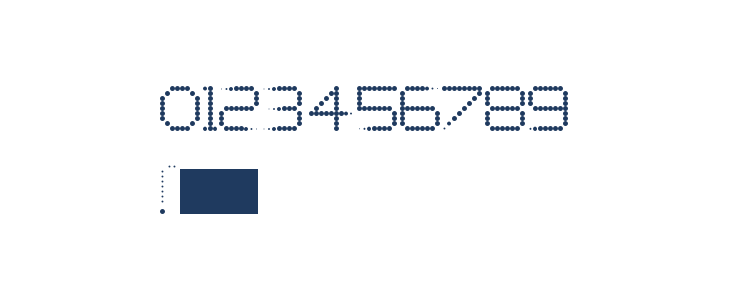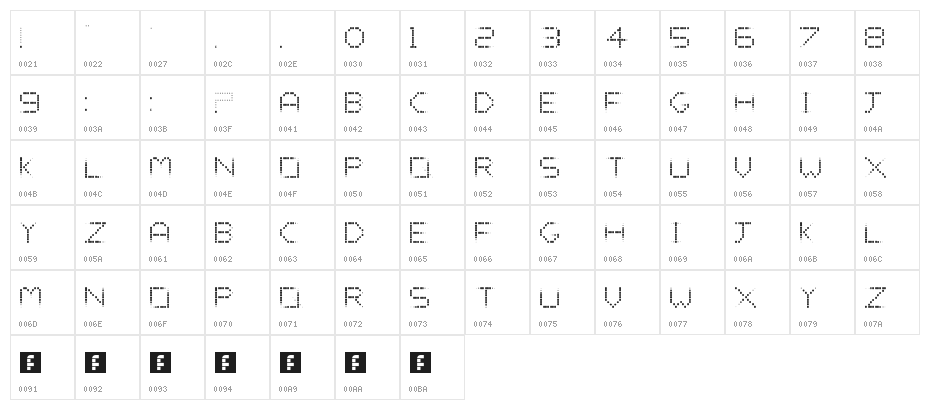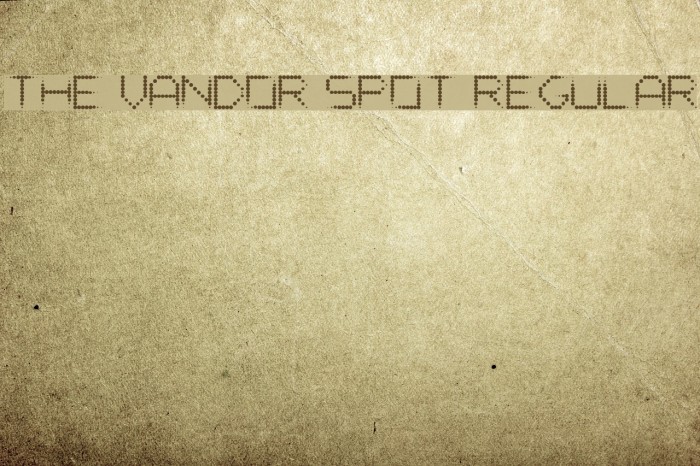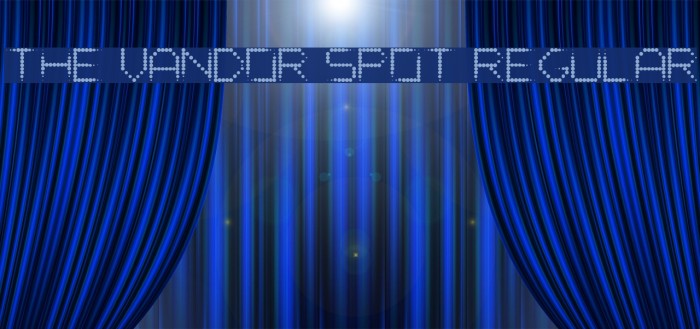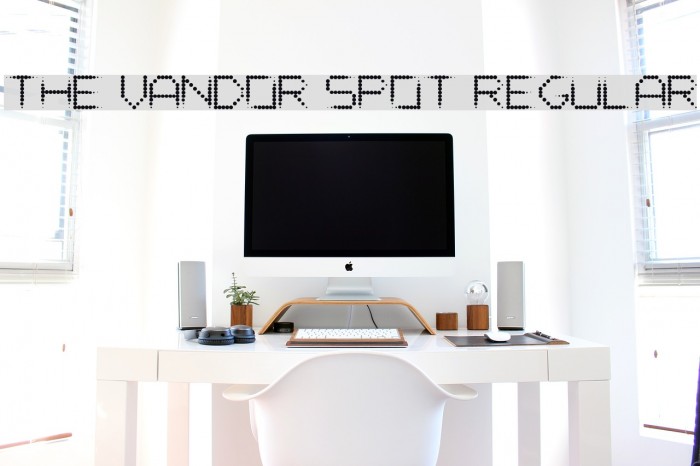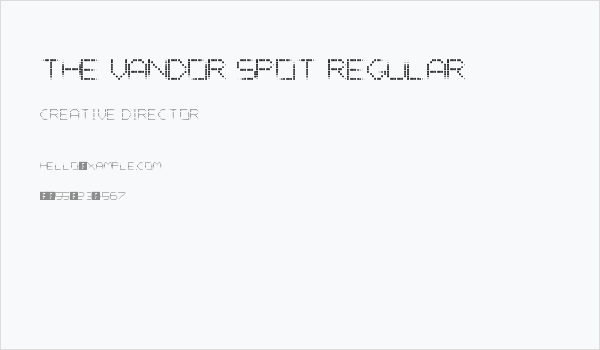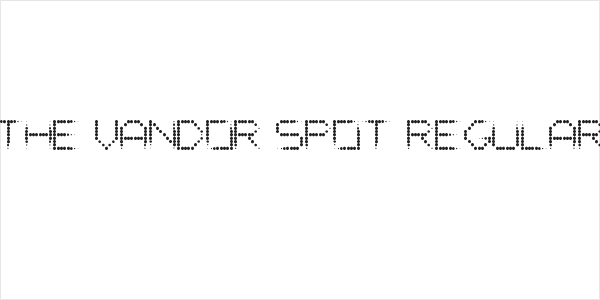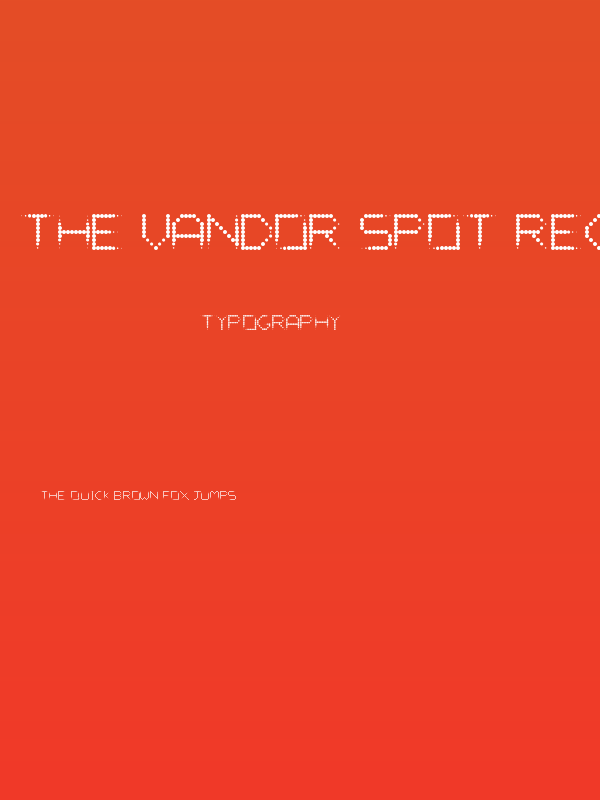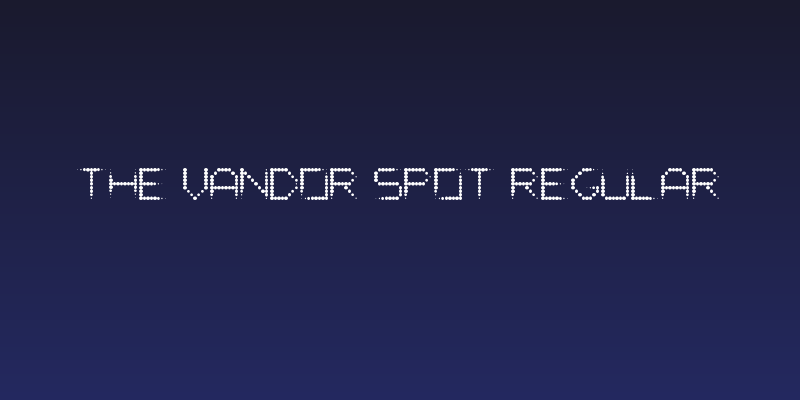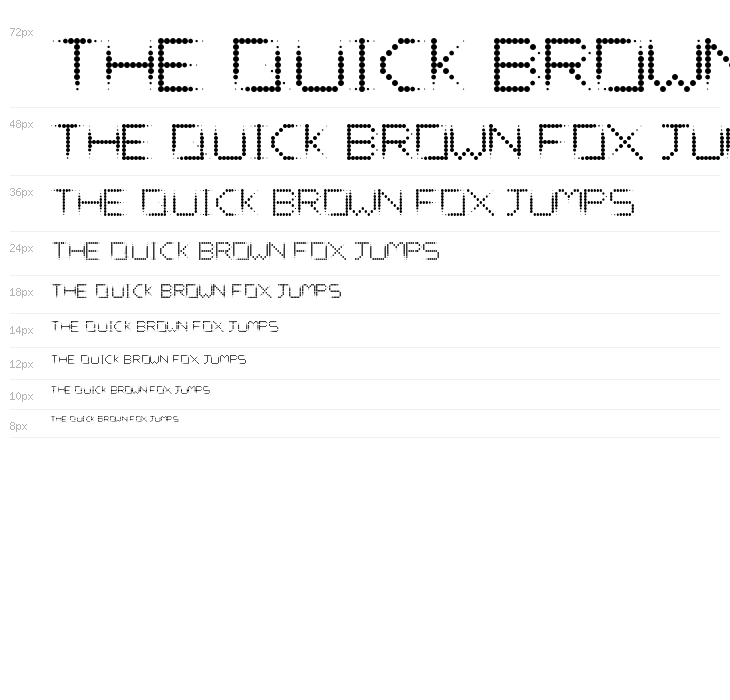
The Vandor Spot Regular Font
The Vandor Spot Regular Description
This font features a unique dot matrix design, where each character is composed of a series of evenly spaced dots. The geometric arrangement of the dots creates a modern and digital aesthetic, reminiscent of LED displays or electronic signage. The uppercase and lowercase letters maintain a consistent style, with a clear distinction between each character. Numbers and special characters follow the same dot pattern, ensuring uniformity across all glyphs. This font's design is both playful and futuristic, making it suitable for creative and tech-oriented projects.
| Use Case | Headlines, Logos, Digital Displays |
| Proposed Projects | Ideal for digital displays, tech branding, futuristic designs, and creative posters. |